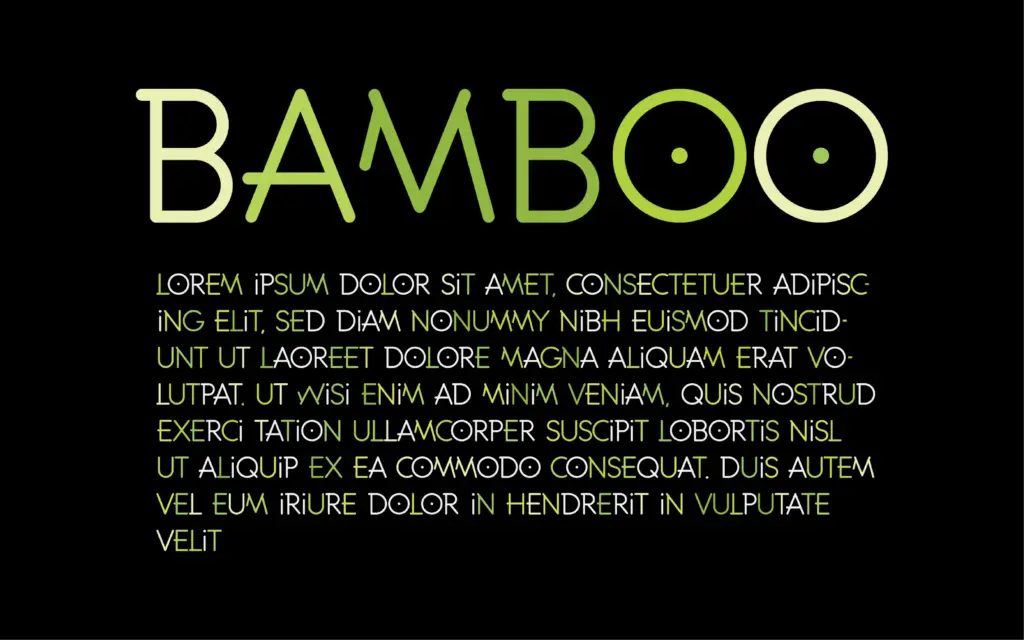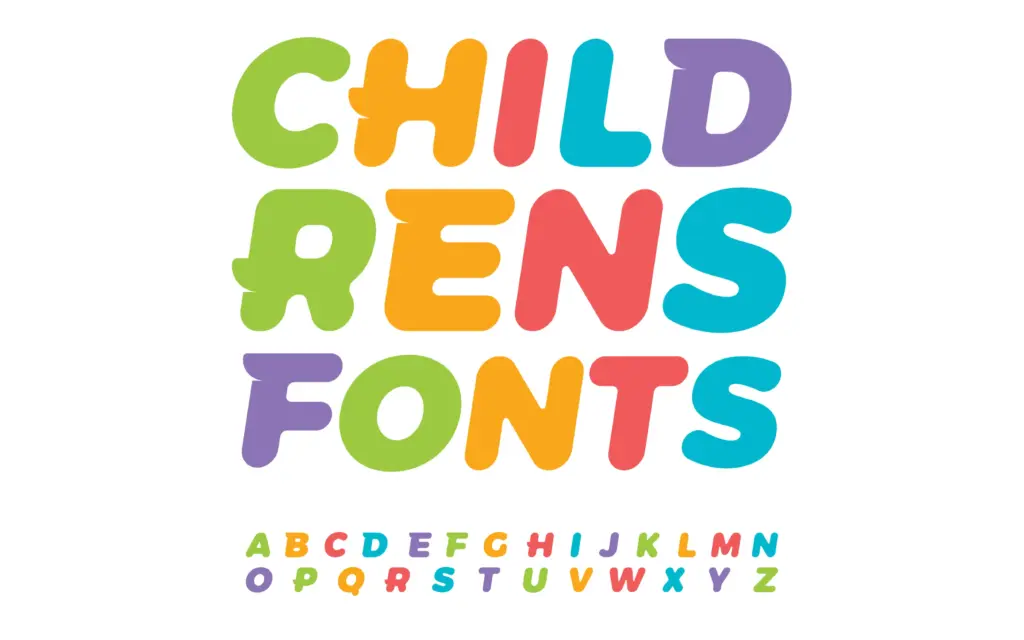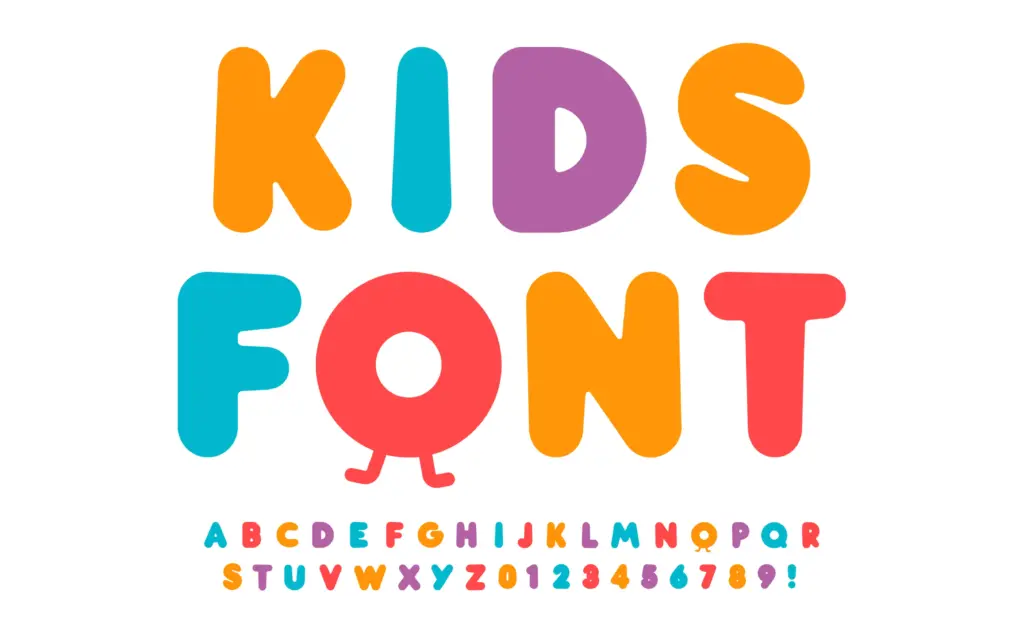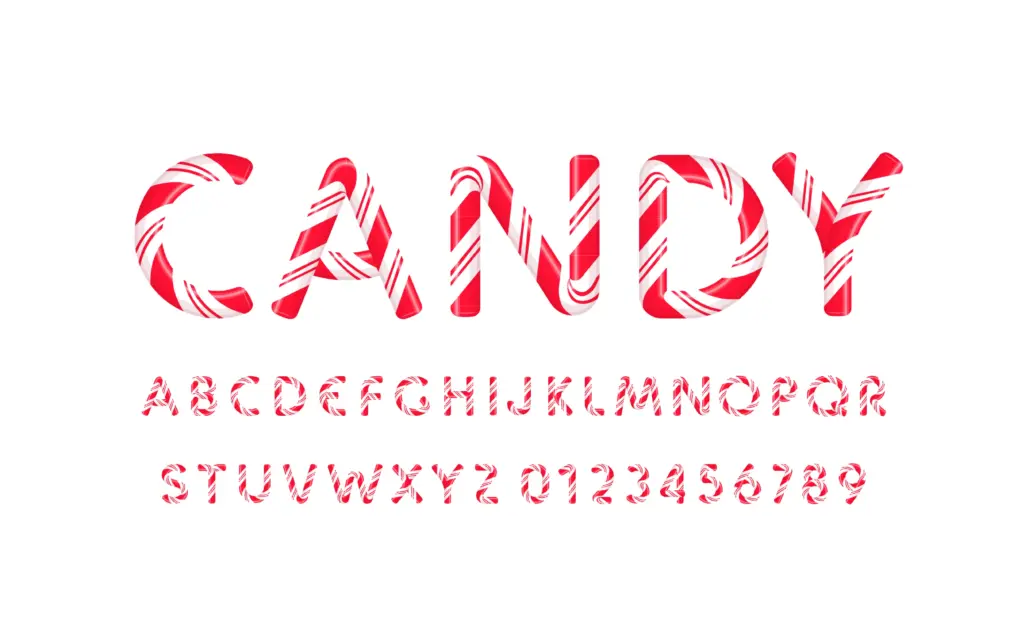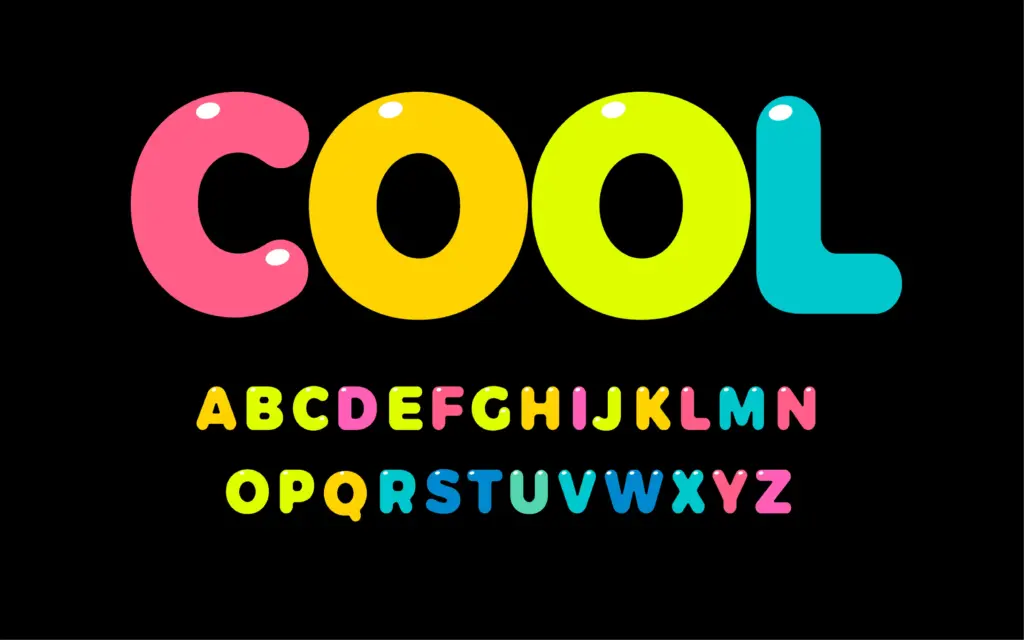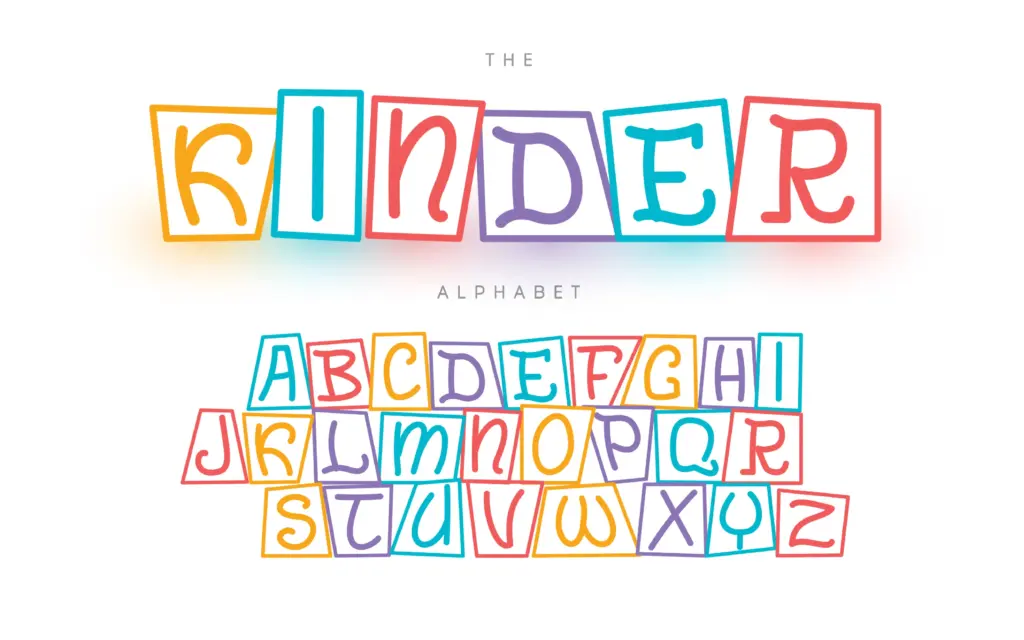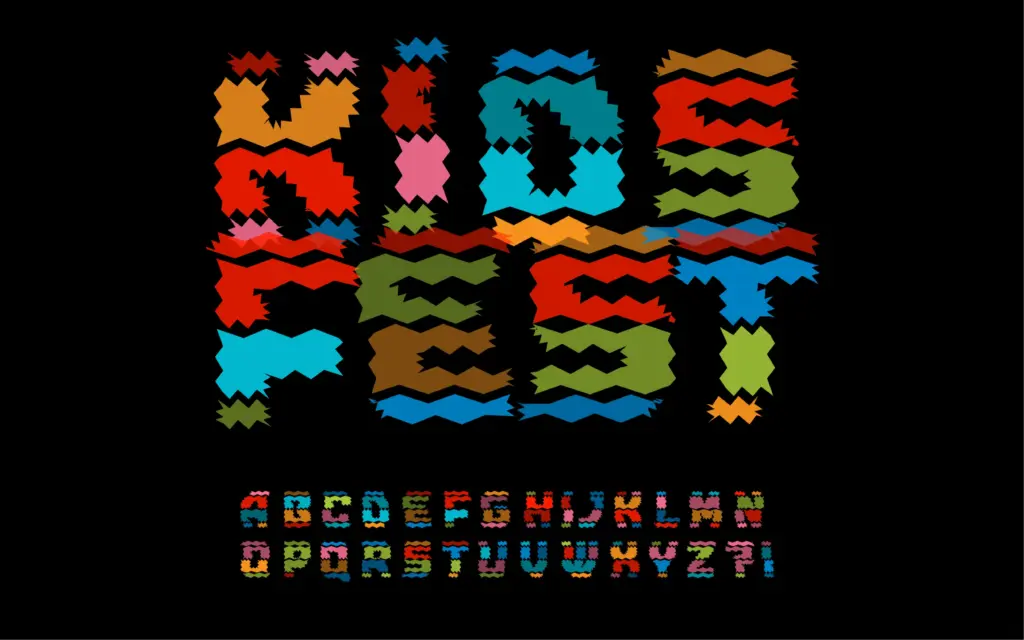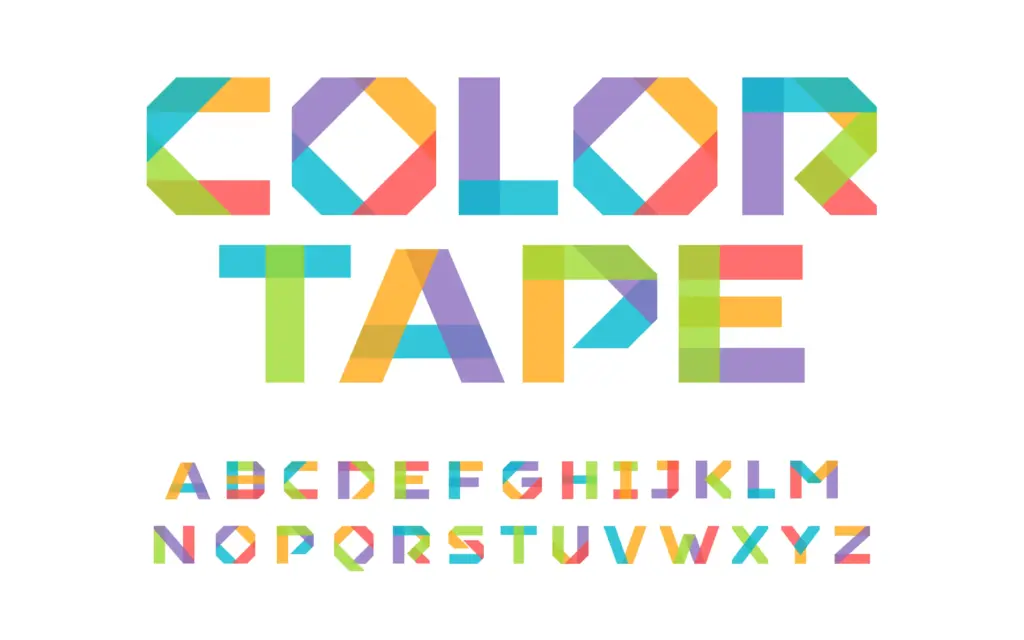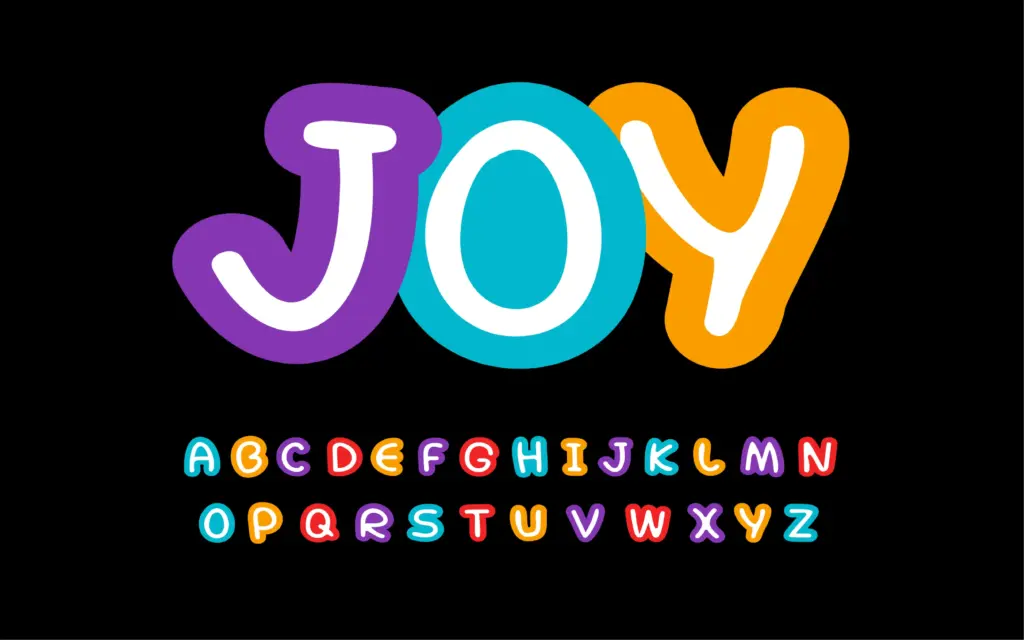
From children’s books to T-shirts and social media graphics, kids-themed designs demand fonts that truly pop. That’s why DealFuel brings you a full creative playground with the –
Kids Fonts Bundle
A curated collection of 23 ready-to-use kids fonts, including Babybox, Bamboo, Candy, Joy, Kidsfest, Kidsneon, Kidstoys, Kidszone, Tape, and more.
They all come in both regular and colour versions, perfect for professional and creative workflows.
These Kids Fonts Can Be Used To:
- Design fun and engaging children’s books.
- Create educational worksheets and classroom materials.
- Craft playful posters and nursery wall art.
- Build memorable kids’ brand logos and packaging.
- Customize T-shirts, stickers, and DIY crafts.
- Design eye-catching social media graphics.
- Create birthday invitations and party decorations.
- Design activity books and coloring pages.
This Kids Fonts Bundle Includes:
- 23 Ready-To-Use Kids Fonts
Preview Of The Kids Fonts: